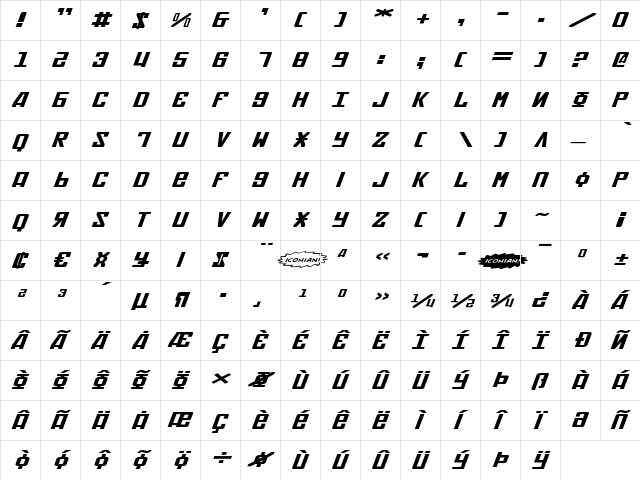
Soviet X-Expanded Italic X-Expanded Italic
X-Expanded Italic ·  Dan Zadorozny ·
DesignerDan Zadorozny
Design Context for Soviet X-Expanded Italic Typeface
Soviet X-Expanded Italic is a composed and adaptable typeface that performs quietly and consistently across a wide range of design contexts. Its italic angle brings a sense of urgency and motion to the letterforms.
Pro Tip: Use Soviet X-Expanded Italic for emphasis, pull quotes, and subheadings where its slanted energy can add rhythm to the layout.